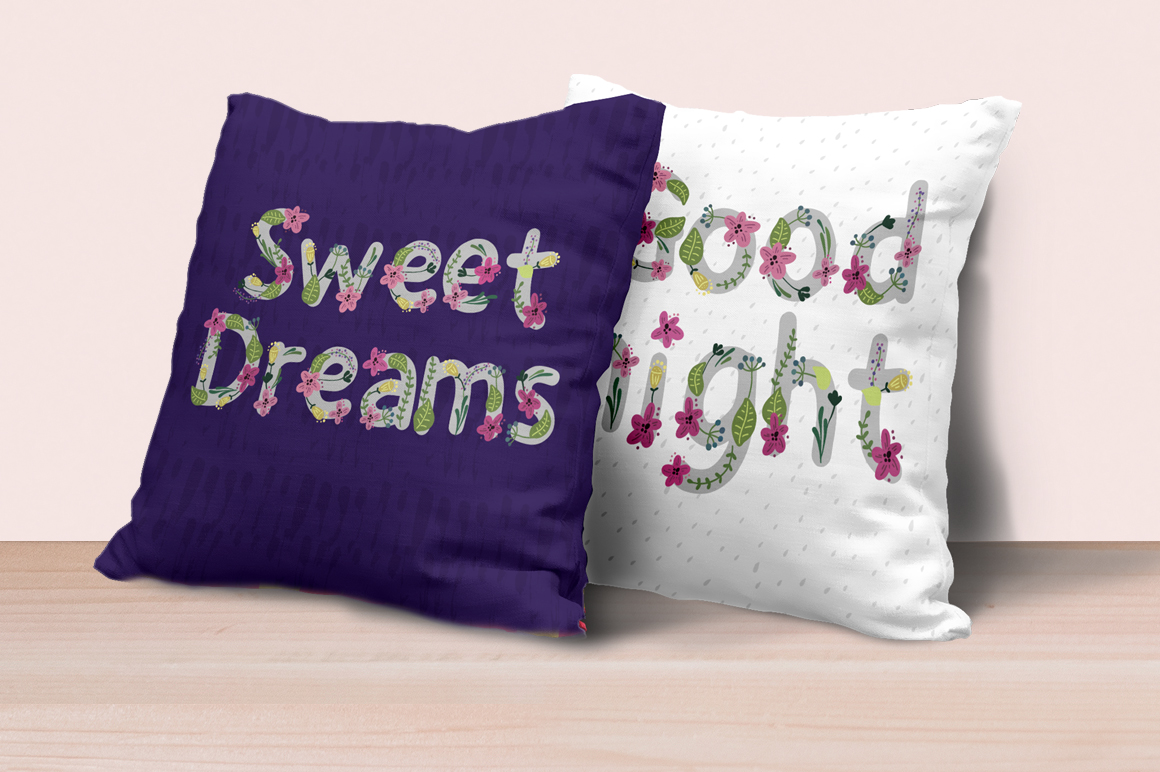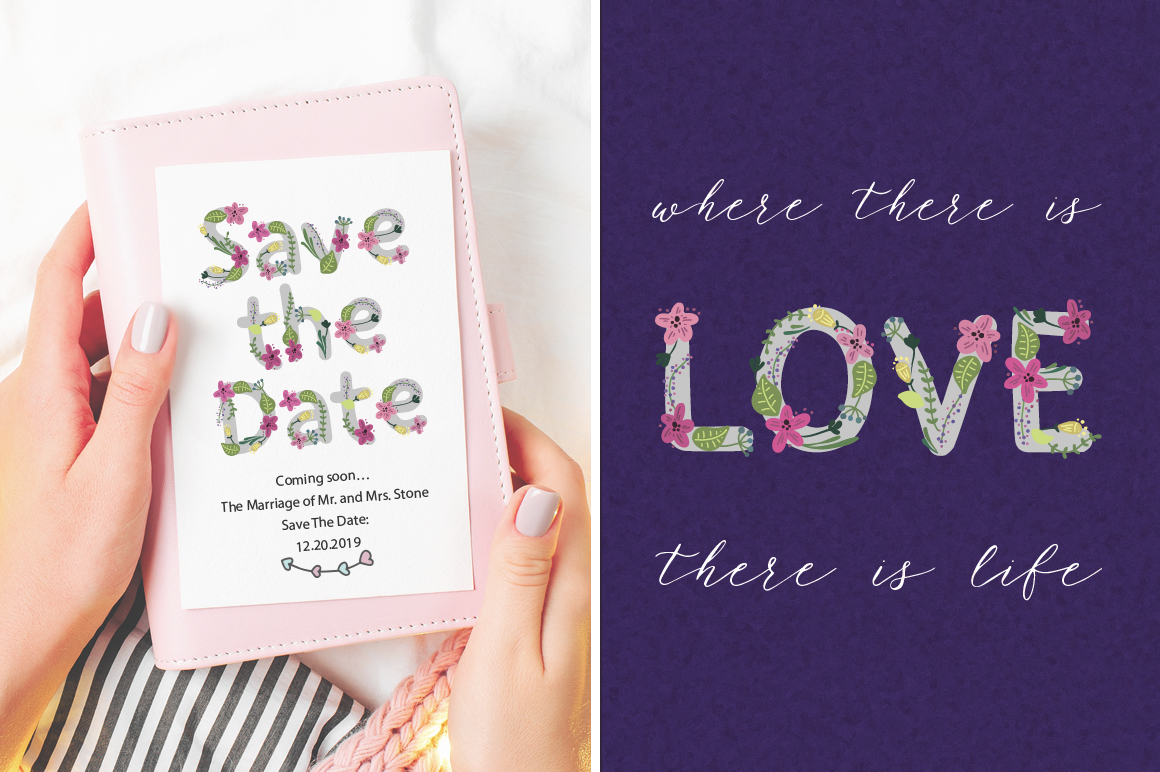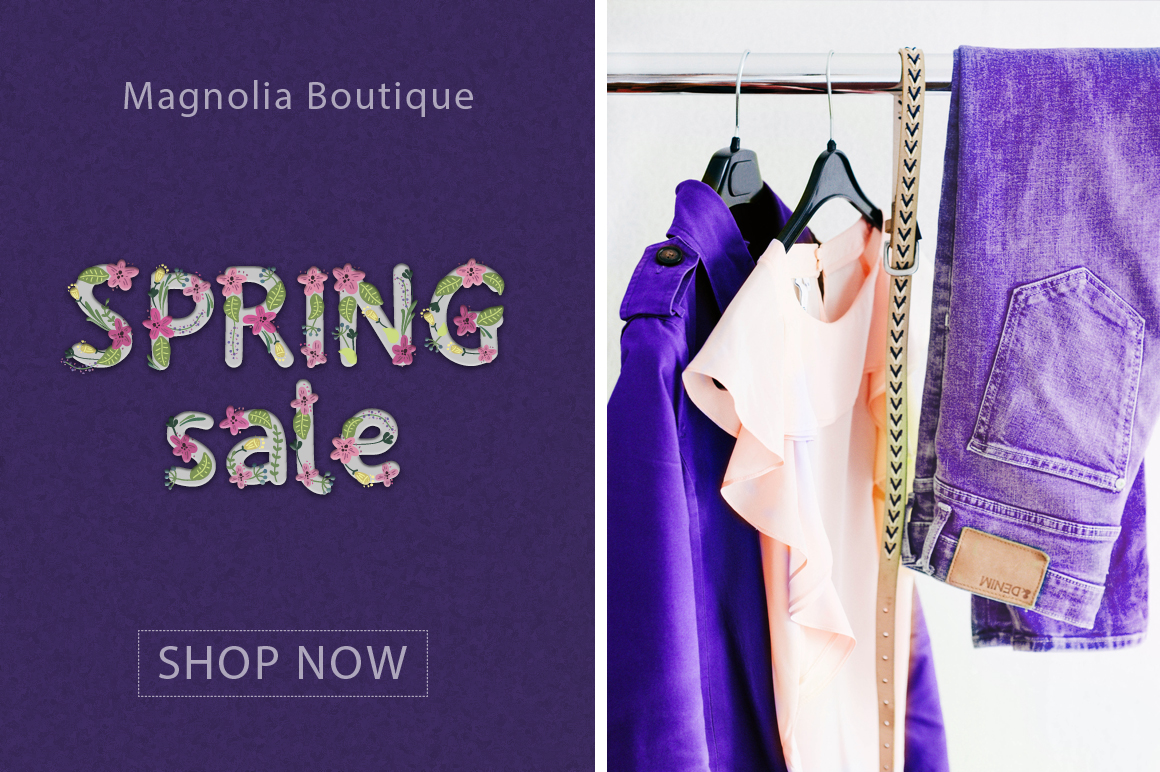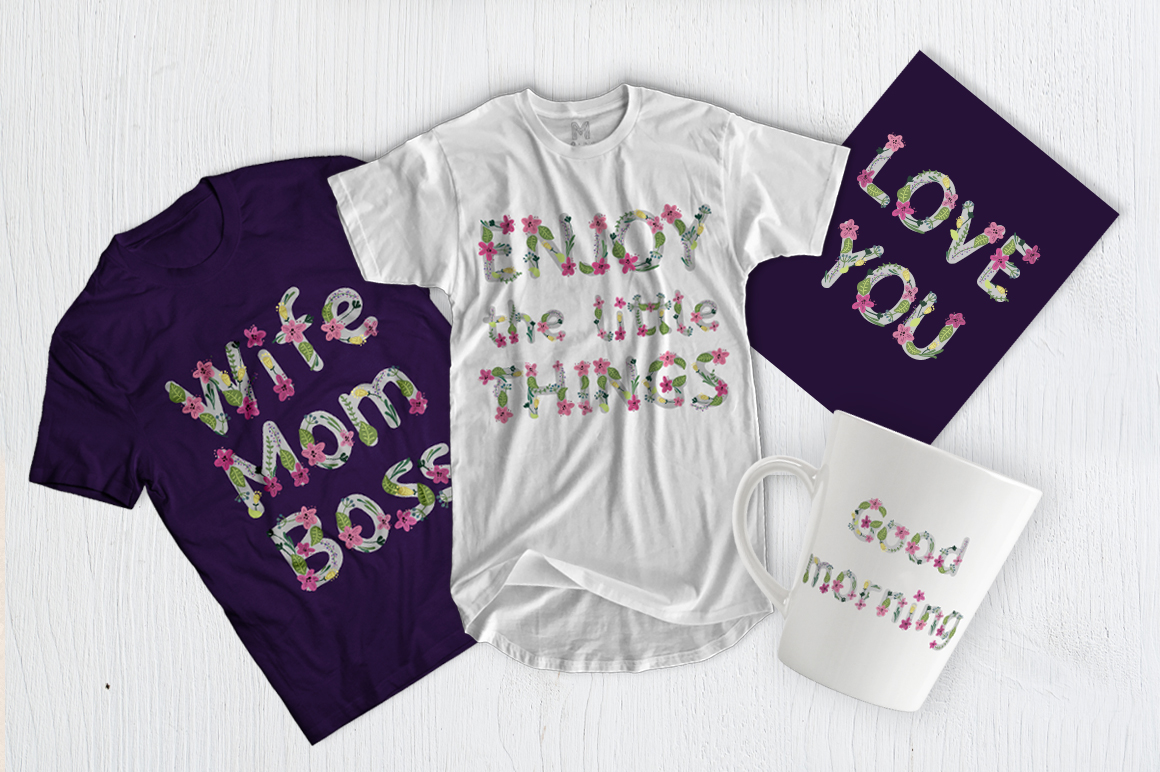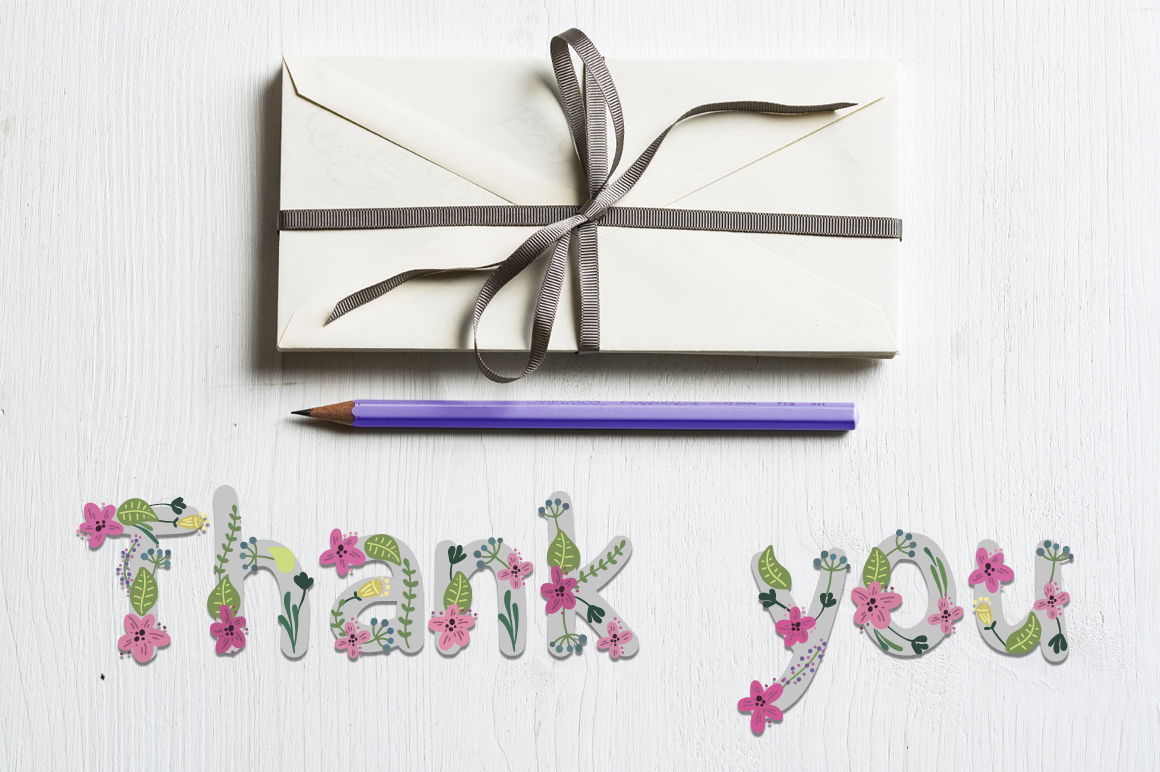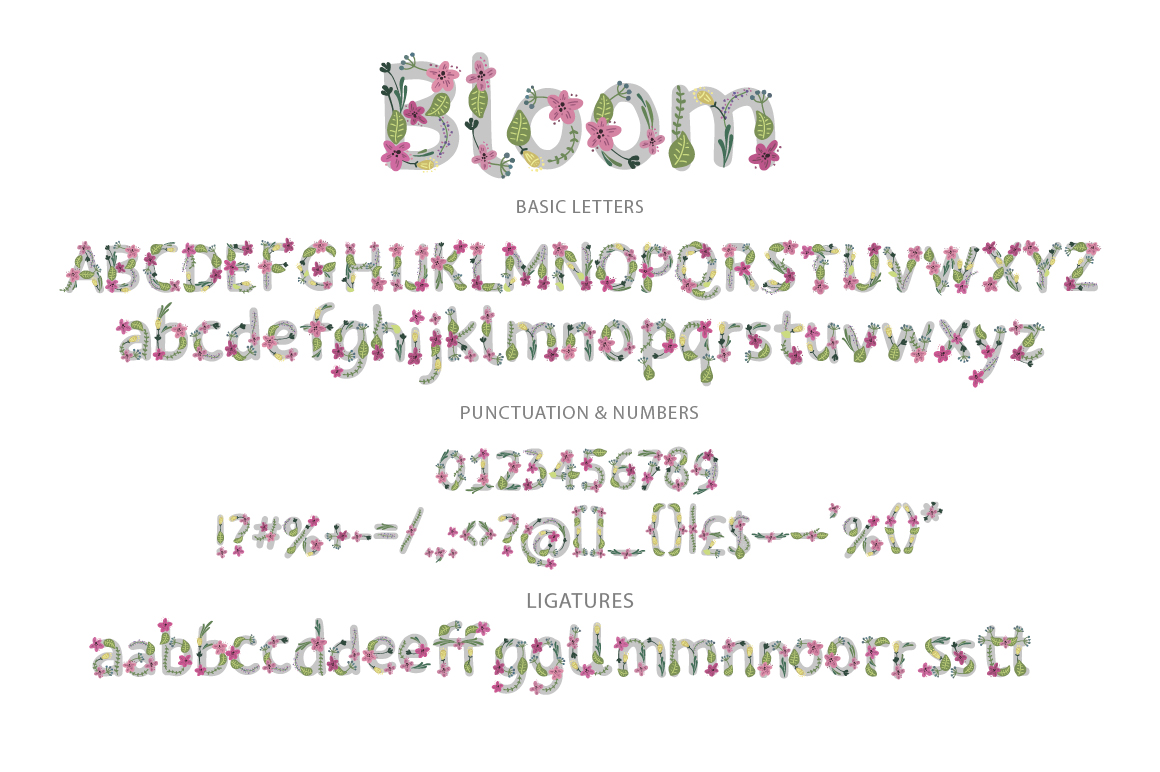
Bloom Font: The Perfect Addition to Your Floral Design Arsenal
Are you tired of using the same old fonts in your designs? Look no further than the Bloom Font, a fresh and springy typeface that’s perfect for ushering in floral and bright design ideas. This decorative font is richly decorated with flowers, making it a beautiful addition to any design project.
A Beautiful Font for Floral Designs
The Bloom Font is a highly decorative font that’s perfect for designers and crafters who want to add a touch of elegance and sophistication to their work. The font features intricate floral designs that are sure to impress, and its unique style makes it stand out from more traditional fonts.
One of the best things about the Bloom Font is its versatility. It looks beautiful on both light and dark backgrounds, making it easy to use in a variety of design projects. Whether you’re creating a bright and cheerful design or a more subdued and elegant one, this font is sure to fit the bill.
Experimental Results
The Bloom Font is also perfect for designers who like to experiment with different techniques and styles. Its unique floral design makes it a great font to use for creative projects, and its versatility means you can use it in a variety of different ways. Whether you’re creating a bold and colorful design or a more subtle and understated one, this font is sure to deliver exceptional results.
Color Fonts Explained
If you’re new to color fonts, you may be wondering what all the fuss is about. Color fonts are a relatively new technology that allows designers to use fonts with multiple colors and gradients. This can add a whole new level of depth and interest to your designs, and can help you create truly unique and eye-catching work.
Tips for Using the Bloom Font
So, how can you get the most out of the Bloom Font? Here are a few tips to get you started:
- Experiment with different colors and backgrounds to find the perfect combination for your design.
- Use the font to add a touch of elegance and sophistication to your work.
- Don’t be afraid to get creative and try new things – the Bloom Font is perfect for experimental designs.
The Bloom Font is a beautiful and versatile typeface that’s perfect for designers and crafters who want to add a touch of elegance and sophistication to their work. With its intricate floral designs and multiple color options, this font is sure to be a hit with anyone who sees it. So why wait? Download the Bloom Font today and start creating stunning designs that will leave a lasting impression.